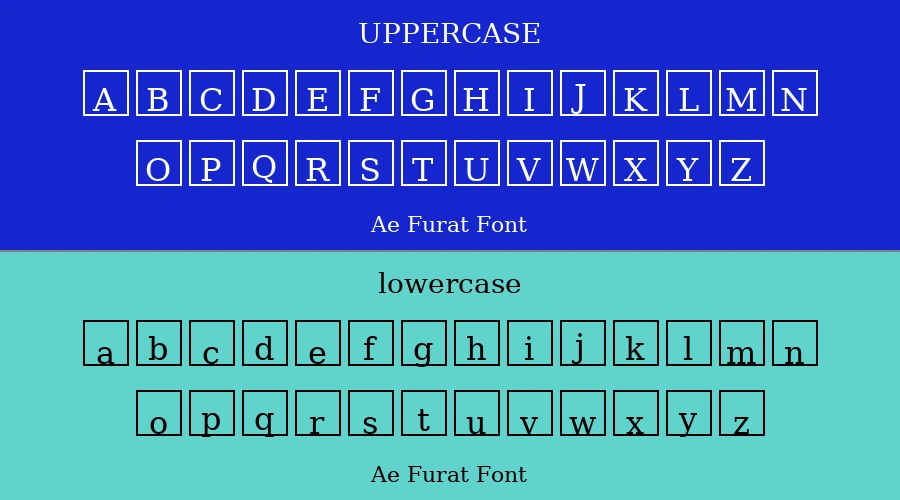
About Ae Furat Font
Designed with precision, Ae Furat Font merges assertive angles with endurance in every character. This versatility makes it particularly effective for technical manuals, where versatility and design innovation directly impact communication quality. Each letterform demonstrates meticulous craftsmanship.
Technical excellence shines through elements like consistent strokes and authentic details, enhancing typographic versatility. In heritage publications settings, Ae Furat Font proves its worth through superior large format impact. The thoughtful execution of terminal angle and market positioning ensures professional results.